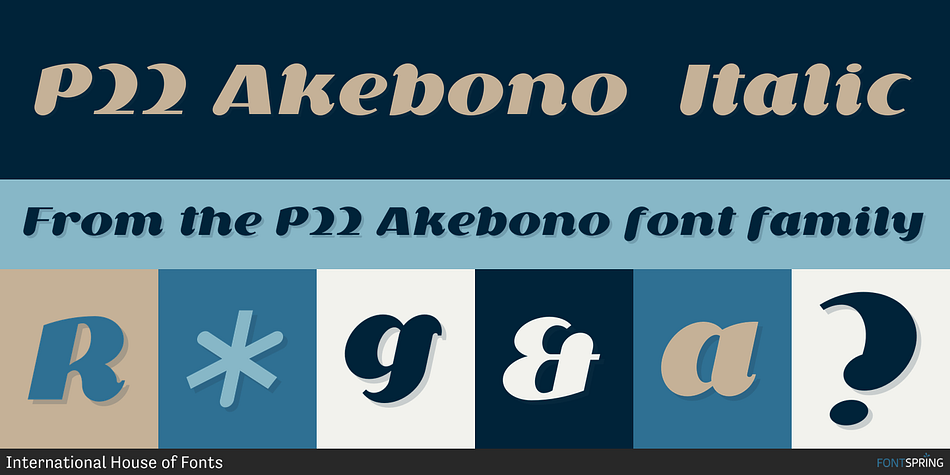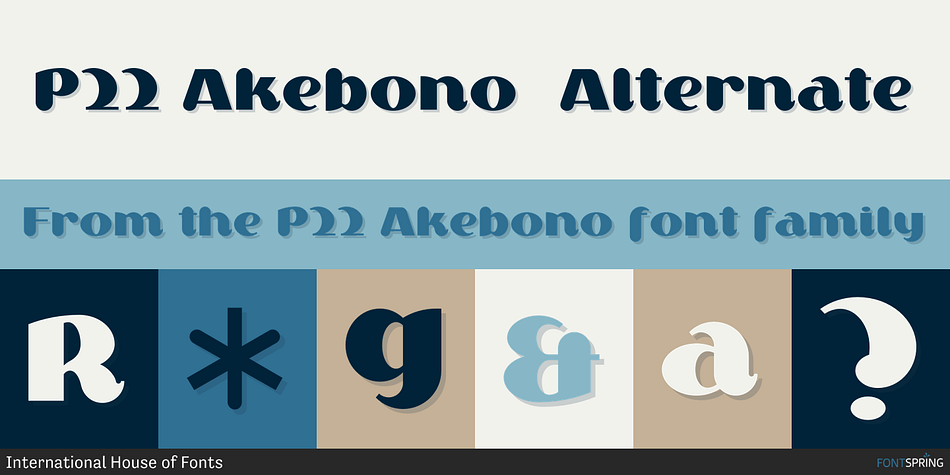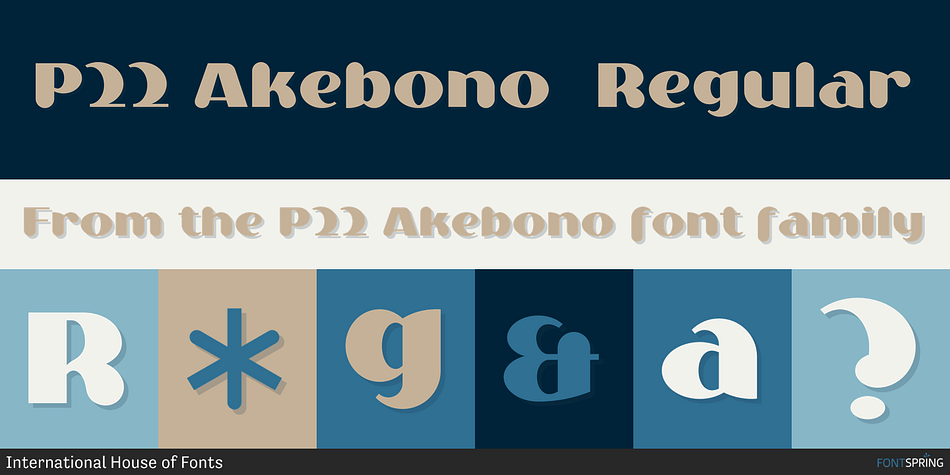
P22 Akebono is a retro font family. This typeface has three styles and was published by International House of Fonts.
In Japanese, Akebono means dawn. The font expresses the pleasure of imbalance, as the stems and strokes are mixed—straight and round with slender terminals and arches. Akebono is available in three styles: Regular, Alternate, and Italic.